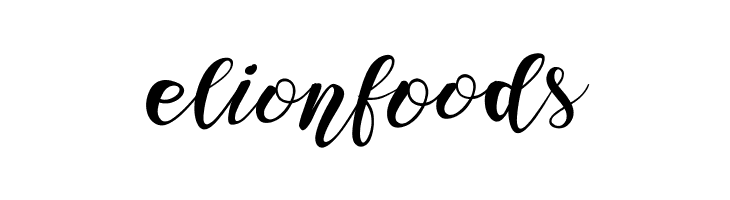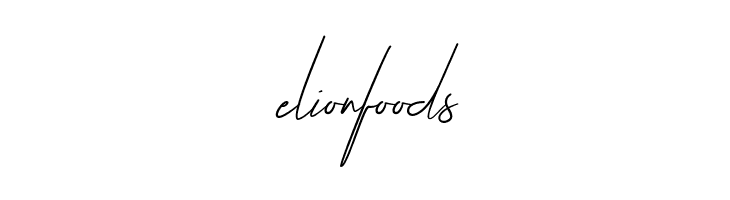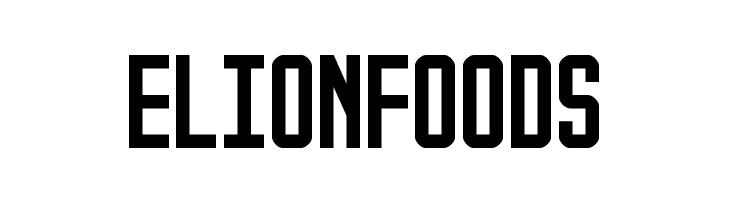
A playful, handwritten font with bold, rounded strokes and a casual slant.
A bold, playful font with rounded edges and a bubbly appearance.
A playful, handwritten font with fluid strokes and a casual vibe.
A bold, distressed font with a rugged, vintage appearance.
An elegant and flowing script font with intricate decorative letterforms.
A modern, elegant script font with smooth curves and consistent strokes.
A dynamic, fluid script font with elegant, flowing letterforms.
A modern, geometric font with a futuristic and dynamic style.